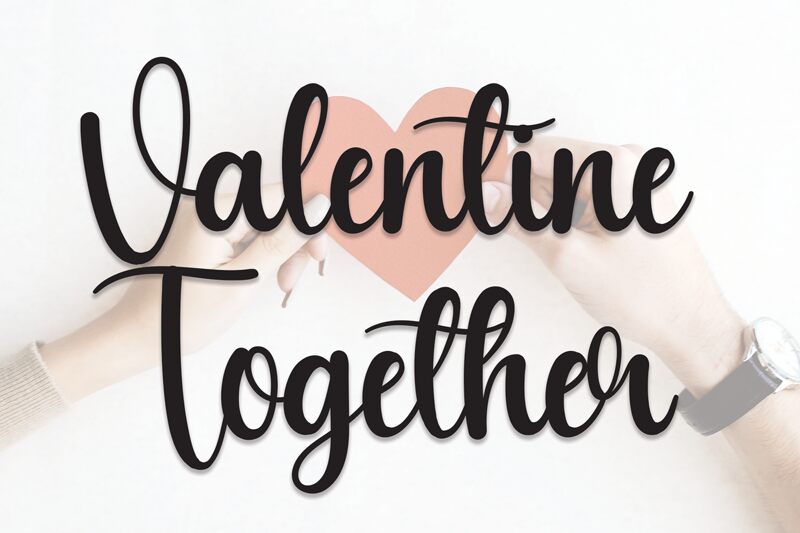
Valentine Together
Valentine Together font is an Andi Moz signature typeface with a romantic and flowing style. Its handwritten calligraphic design features perfectly executed lines that flow nicely throughout. Smooth curves, noticeable contrasts in thickness, as well as small decorative endings make the font visually expressive and elegant both in lowercase and uppercase characters.